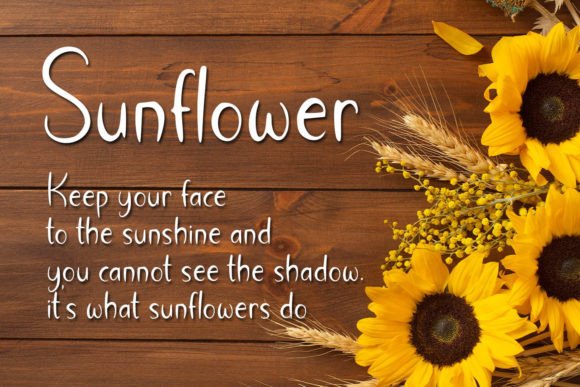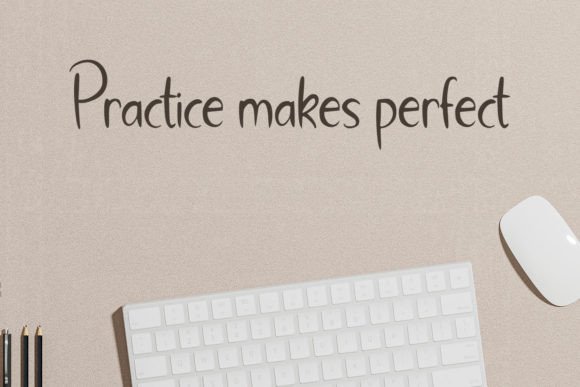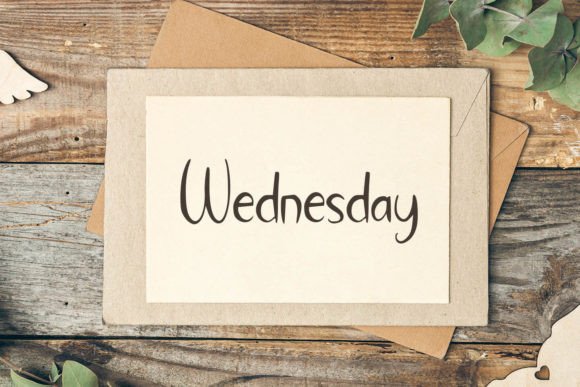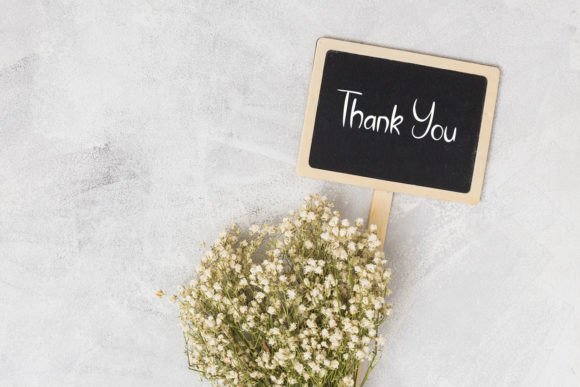
The Perfect Font for Creative Projects: A Deep Dive into Farmerhouse Font
I’ll never forget the design project that led me to discover the amazing Farmerhouse font. I was working on a branding project for a local farm-to-table restaurant, and I needed a font that would capture the warmth and friendliness of their brand. After hours of searching through font libraries and testing out different options, I stumbled upon Farmerhouse – a friendly handwritten font that instantly resonated with the restaurant’s vibe. In this article, I’ll share my experience with Farmerhouse, its features, and how to make the most of it in your creative projects.
An Honest Review of Farmerhouse Font
So, what makes Farmerhouse font so special? Here are some things I love about it:
- ✨ Friendliness and approachability: Farmerhouse has a warm, inviting feel that’s perfect for branding, quotes, and social media posts.
- ✅ Versatility: This font is great for a wide range of projects, from logos and t-shirt designs to tote bag designs, cards, and banners.
- 💫 Ease of use: Farmerhouse is easy to read and works well in both digital and print formats.
Of course, no font is perfect, and here are a few quirks to keep in mind:
- 🤔 Legibility at small sizes: While Farmerhouse is generally easy to read, it can get a bit fuzzy at very small font sizes (below 10pt).
- ⚠️ Limited formal applications: Due to its friendly, casual nature, Farmerhouse might not be the best fit for very formal or corporate projects.
- Experiment with OpenType features like ligatures and stylistic alternates to add some flair to your text.
- Explore the Glyphs panel to access stylistic alternates, ligatures, and other OpenType features.
The Story Behind Farmerhouse Font
While the actual story behind Farmerhouse font might be unknown, it’s easy to imagine that it was created with the intention of capturing the warmth and friendliness of handwritten text. Perhaps the designer, inspired by traditional farmhouse signs and handwritten notes, aimed to create a font that would bring a sense of approachability and personality to digital and print projects.
| What makes Farmerhouse font so special? | Its friendly, approachable feel and versatility make it perfect for a wide range of creative projects. |
| Is Farmerhouse suitable for very formal projects? | While it’s a great font for many projects, its friendly nature might not make it the best fit for very formal or corporate applications. |